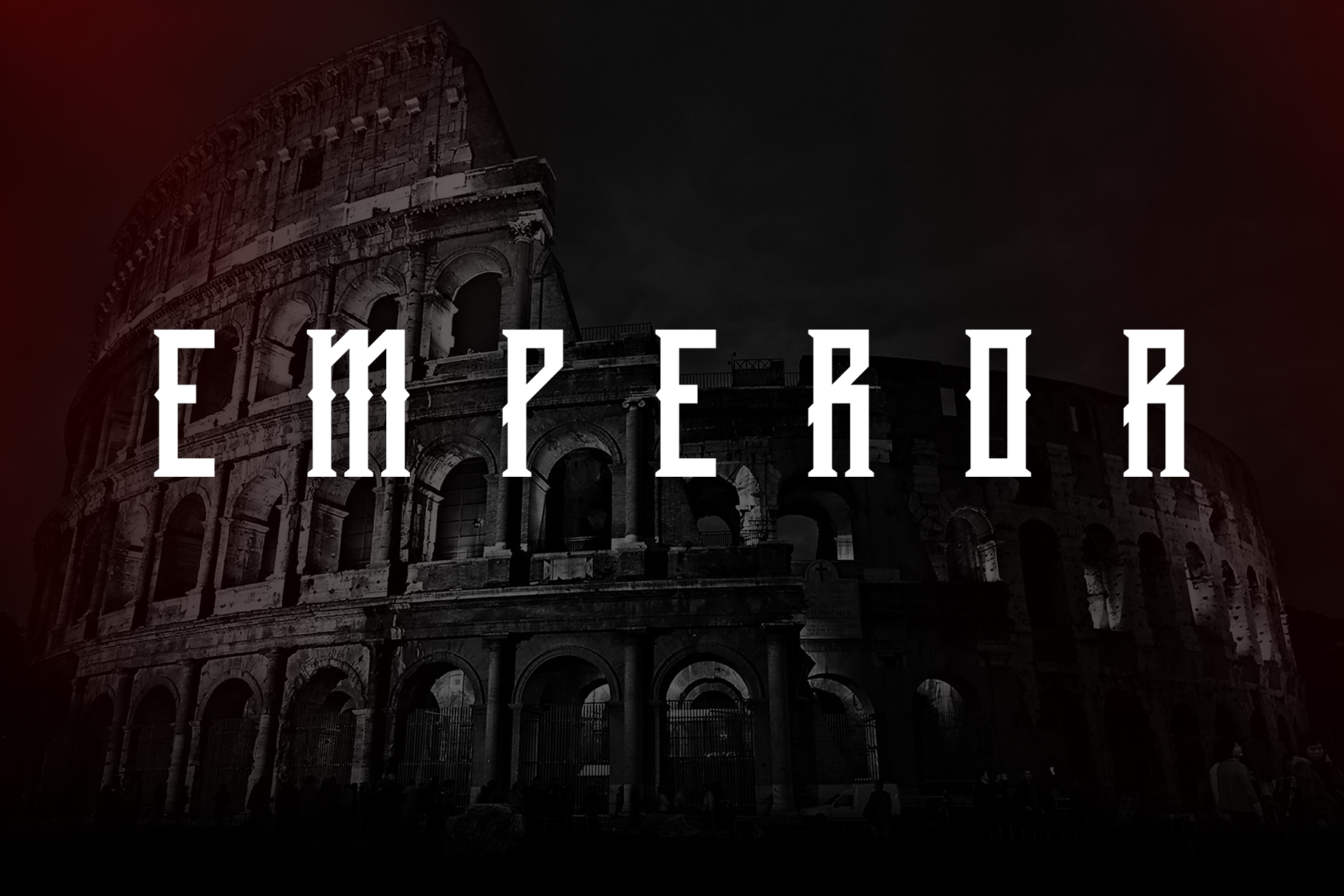
Emperor - Display Typeface
Emperor is a contemporary display typeface stimulated with the geometric shapes and fluidity of modern typefaces. The aesthetics have proven to work well in most layouts, contexts and is accompanied with uppercase and multi-lingual letters.
Emperor includes:
- 16 Weights
- Extended Characters